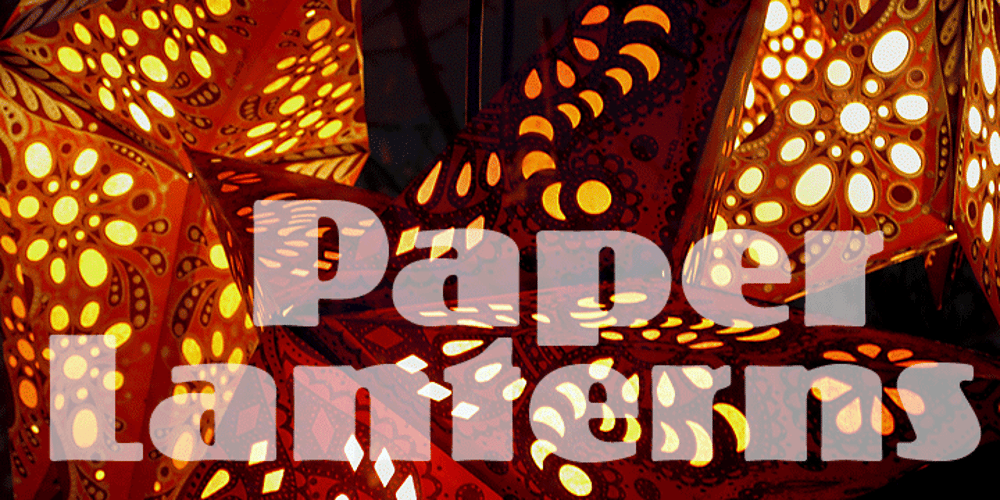
Koloss CT
Koloss CT font
Koloss CT Font Family was designed by Jason Castle and published by CastleType. Koloss CT contains 3 styles and family package options. A well-designed bold art deco font. Very chunky. Uppercase, lowercase, numerals and punctuation. CastleType additions to the Koloss family include Koloss Bold Condensed and Koloss Bold Wave. The latter was used beautifully in the wonderful children’s book The Leaf Men (and the Brave Good Bugs) written and illustrated by William Joyce.